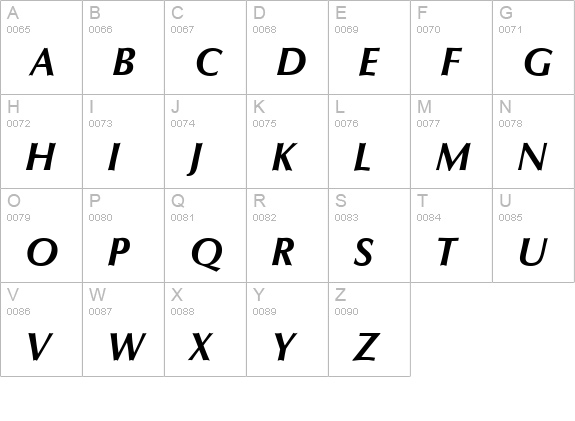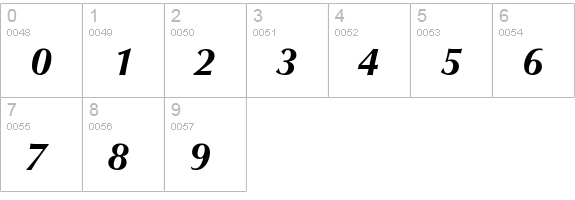
QTOptimum Bold Italic Font Details
QTOptimum Bold Italic is a strong, high-contrast, italic variant in the QTOptimum typeface family \xE2\x80\x94 well suited to headlines, attention-grabbing titles, and strong calls-to-action.
QTOptimum Bold Italic is a stunning and versatile font that effortlessly combines boldness with elegance. Its sleek and italicized letterforms exude confidence and sophistication, making it the ideal choice for designs that demand attention. With its bold strokes and slanted angles, QTOptimum Bold Italic captures the essence of modernity and style. It adds a touch of flair to any project, making it stand out from the crowd. Whether it's used for headlines, titles, or branding materials, this font will leave a lasting impression on your audience. What sets QTOptimum Bold Italic apart is not only its remarkable design but also its accessibility. You can freely download this font at FontsMarket.com, allowing you to incorporate it into your creative endeavors without any hassle. This means that you have the freedom to explore its countless possibilities and use it in a wide range of projects, from graphic design to web development. The characters of QTOptimum Bold Italic are meticulously crafted, ensuring a high level of legibility even at smaller sizes. Each letter flows seamlessly into the next, creating a harmonious and visually pleasing composition. The boldness of the font adds emphasis and impact, while the italicized slant adds a sense of dynamism and movement. Whether you're designing a logo, creating a poster, or crafting a website, QTOptimum Bold Italic will help you achieve a professional and polished look. Its versatility and boldness make it suitable for a variety of design styles, from modern and minimalistic to bold and expressive. In conclusion, QTOptimum Bold Italic is a font that combines the best of both worlds: boldness and elegance. Its freely available download at FontsMarket.com ensures that you can effortlessly incorporate it into your designs, giving you the creative freedom you deserve. Give your projects a touch of sophistication and make a lasting impression with QTOptimum Bold Italic.